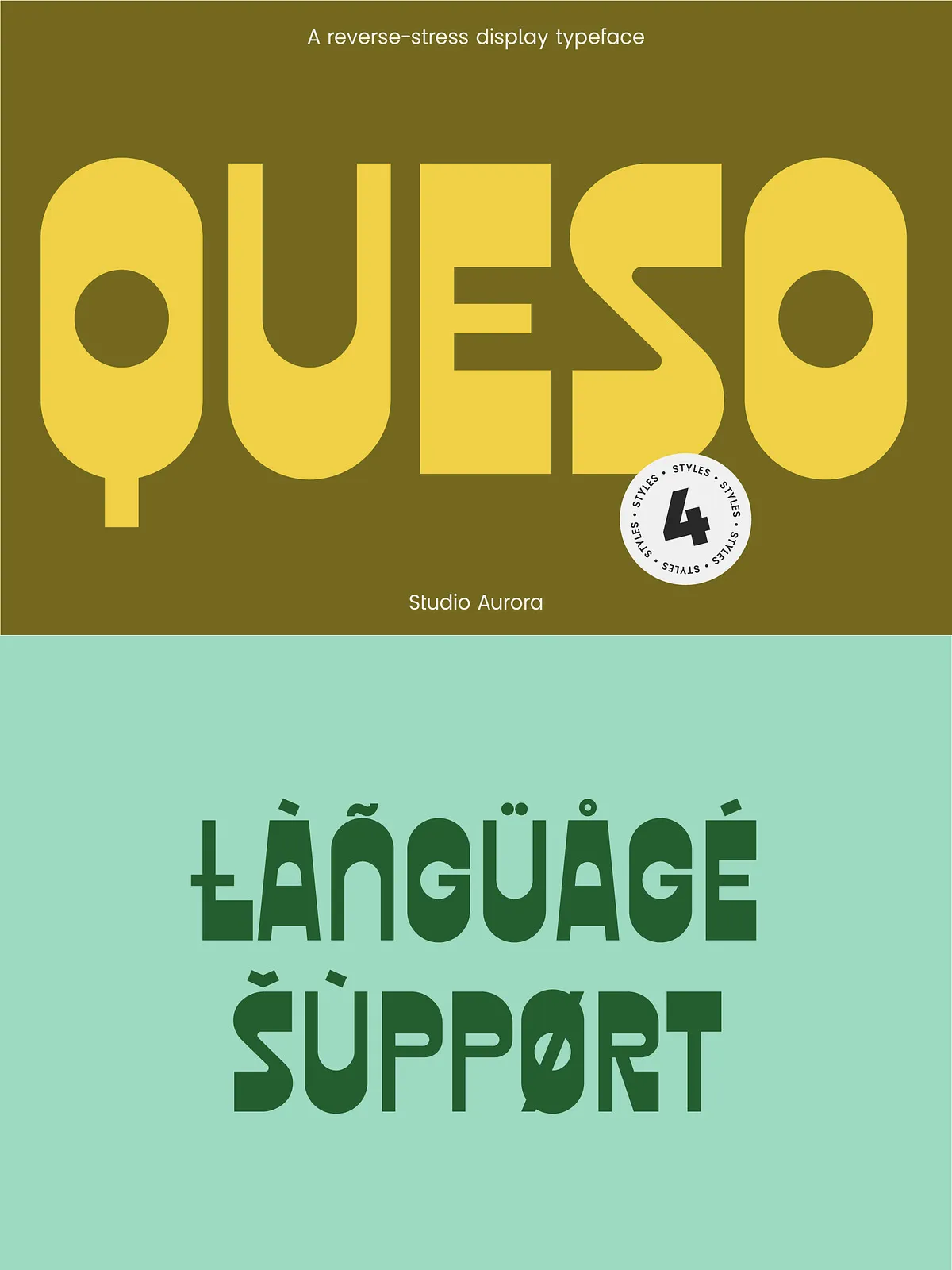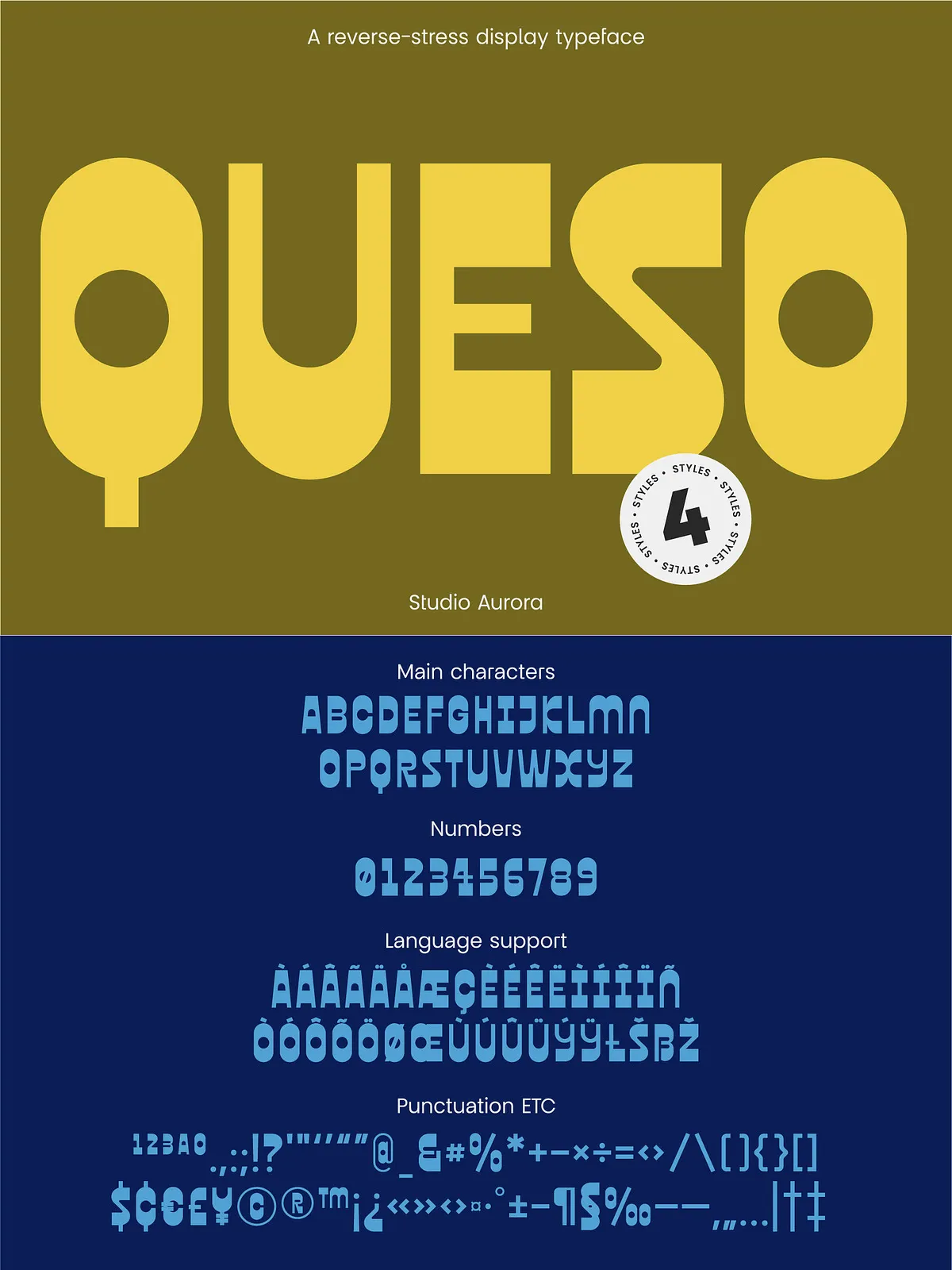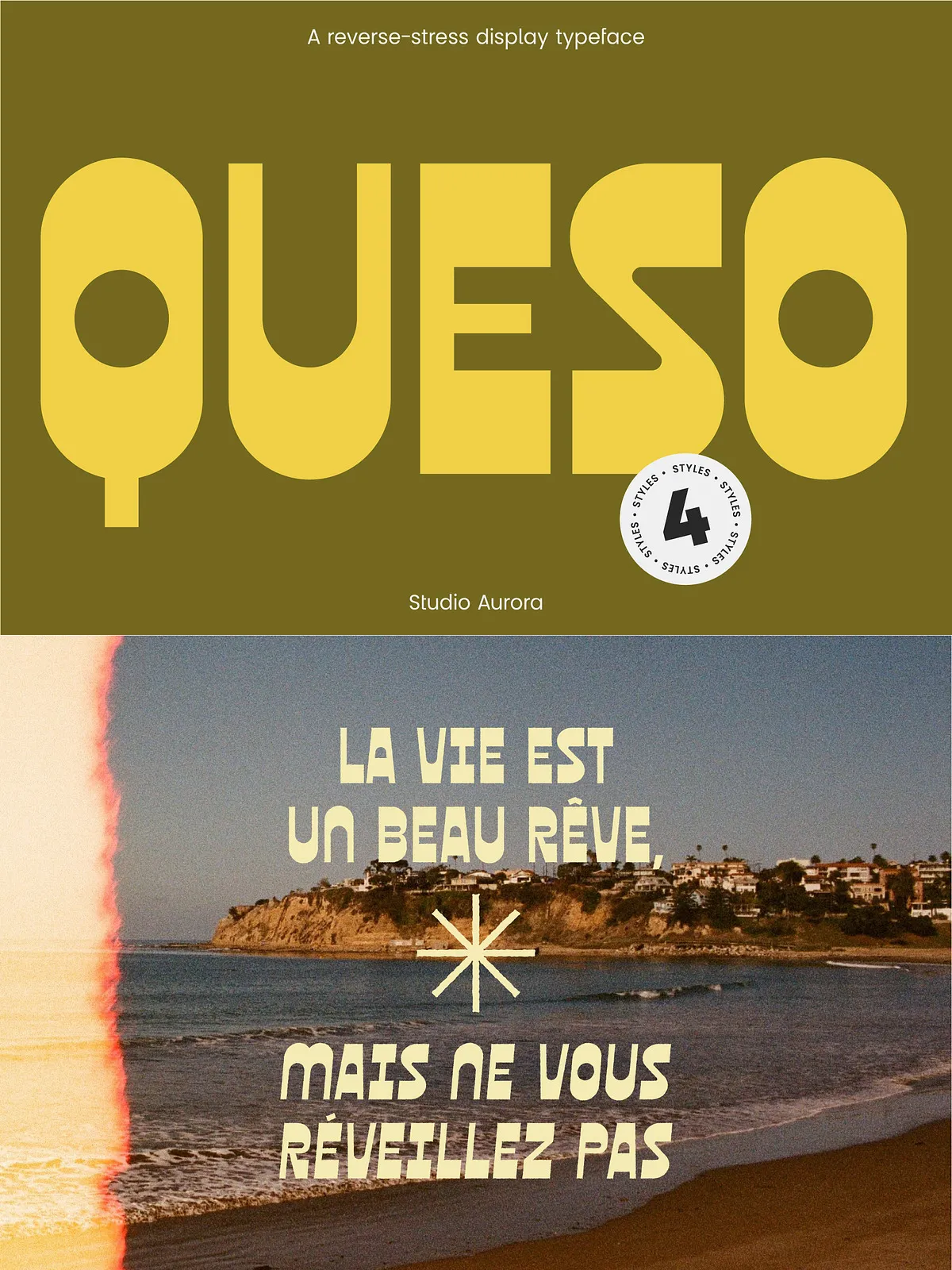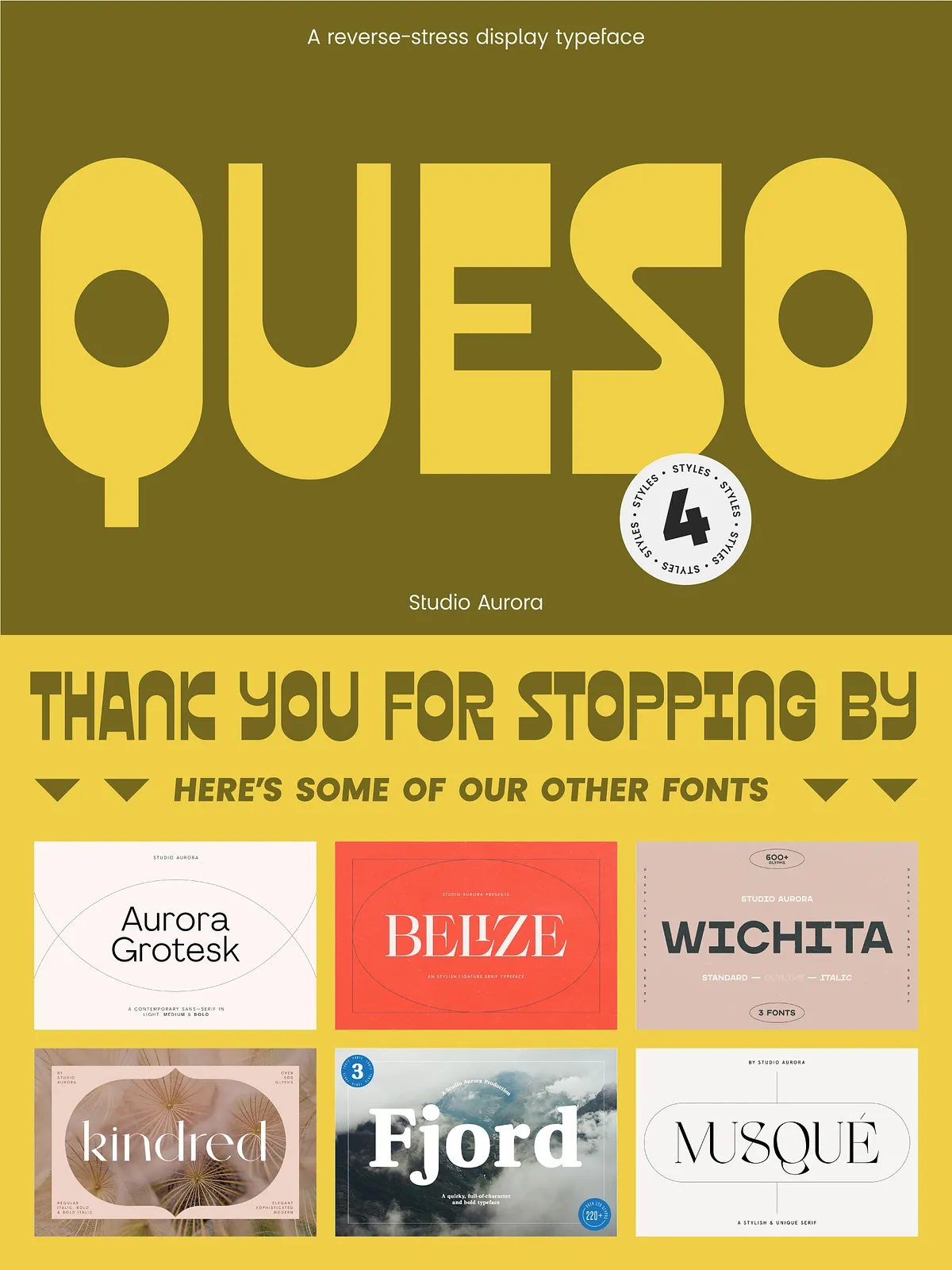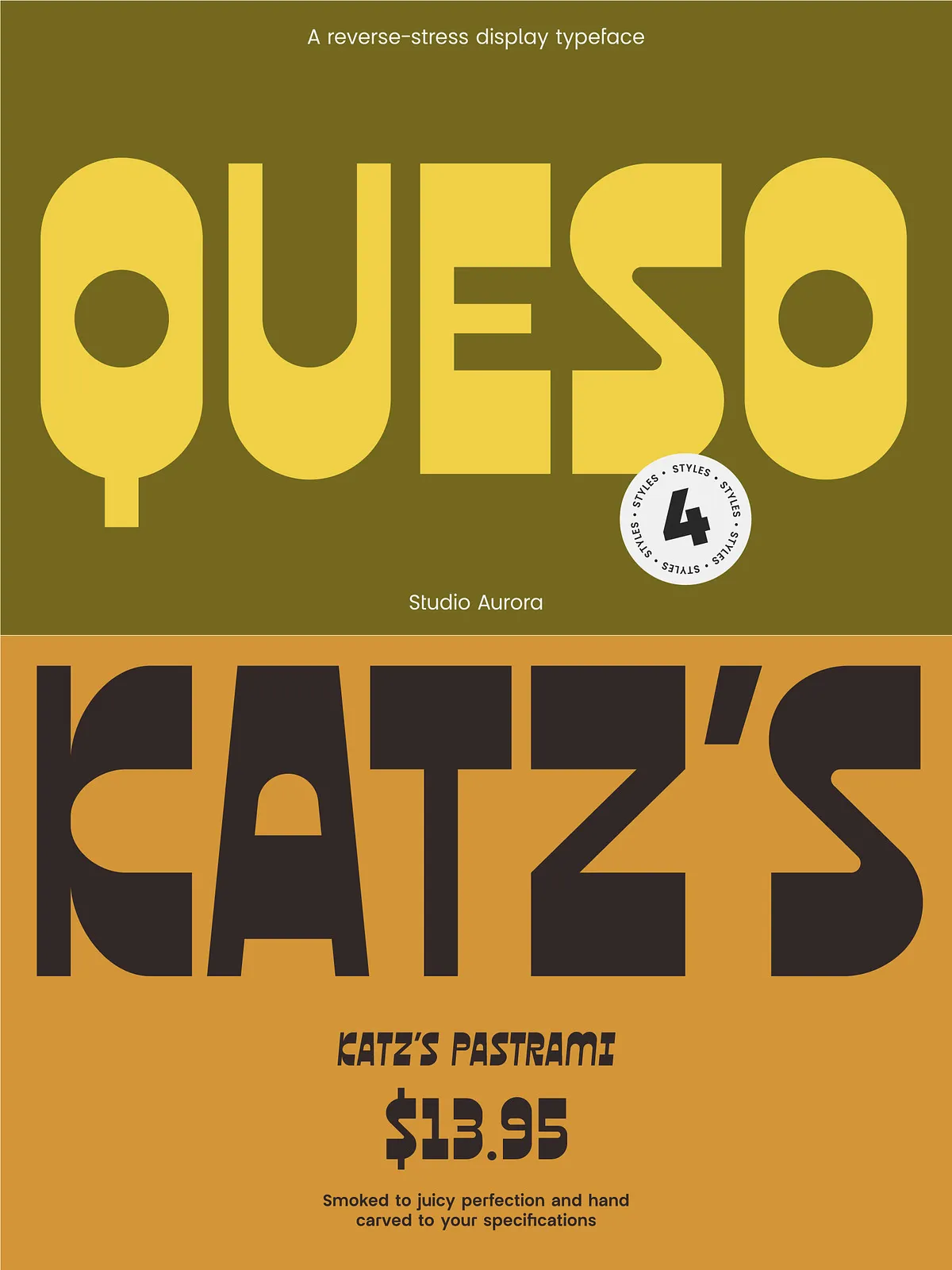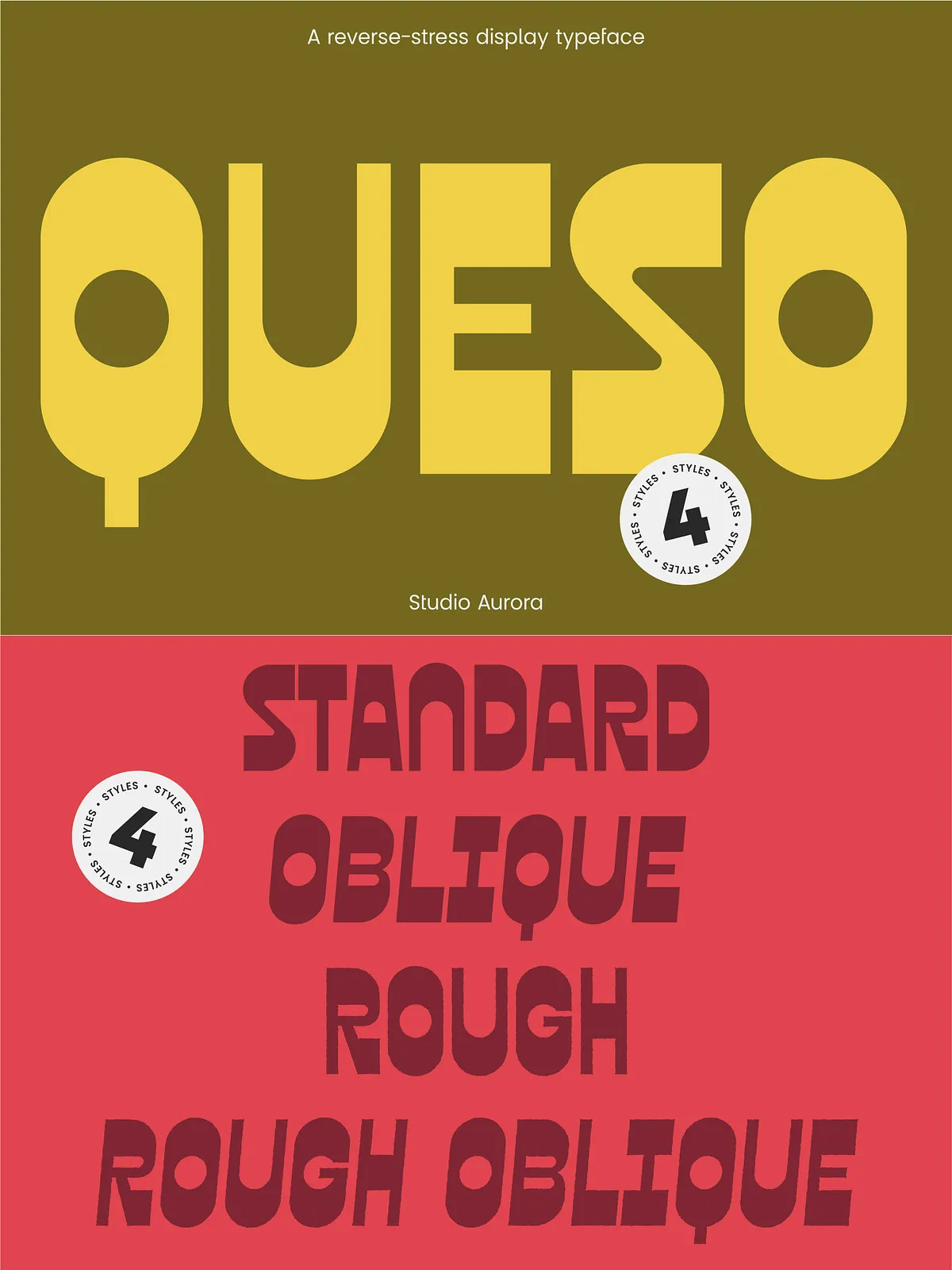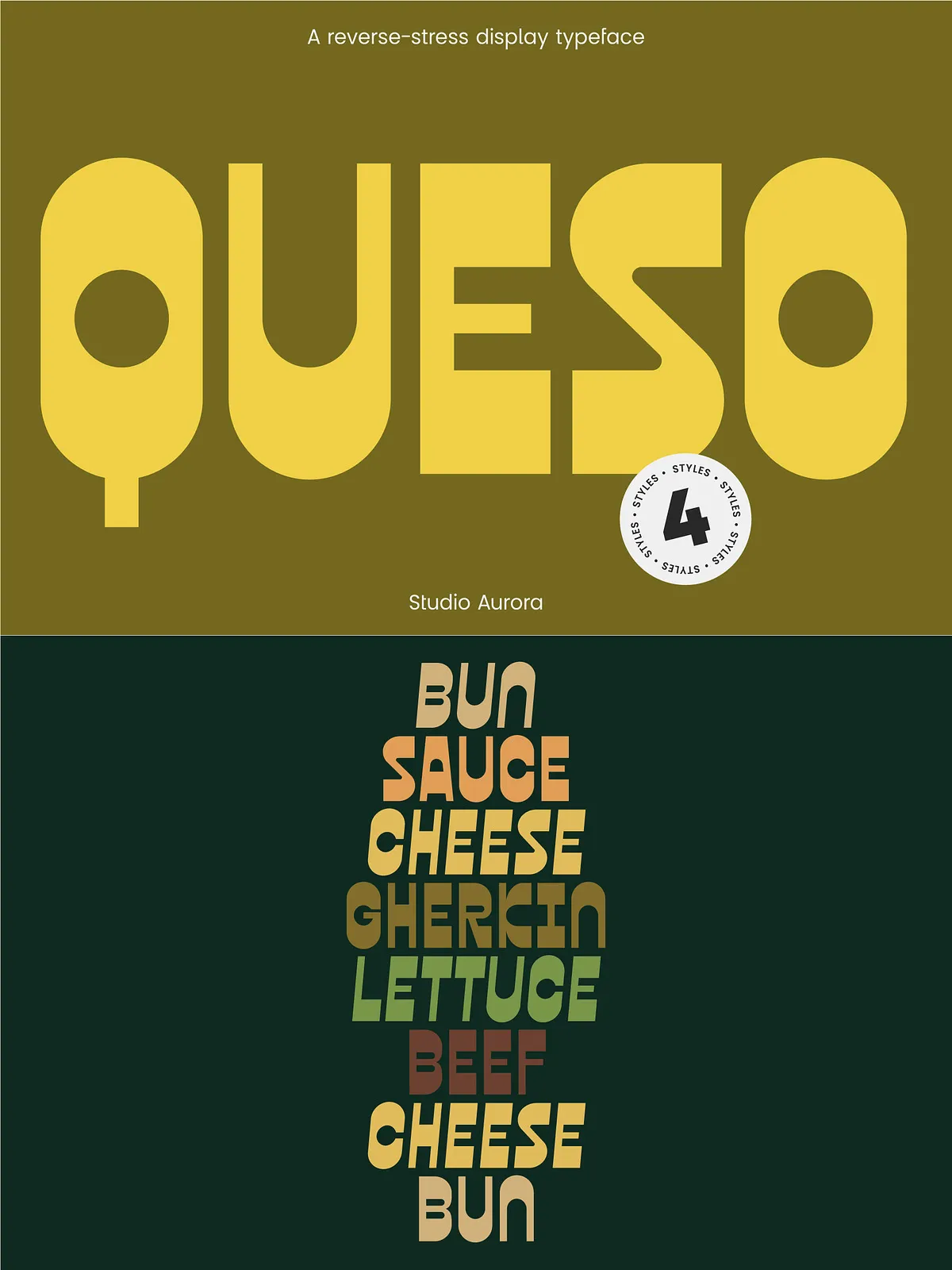
Queso – Quirky Retro Display Font
Queso is a 4 style (regular, oblique, rough & rough oblique) fun and quirky retro reverse contrast display font.
Perfect for designs that need that retro, hipster feel with a contemporary edge. Use it for a logo, a magazine masthead or as part of an email marketing campaign – it’s up to you!
4 styles including: Regular, Oblique, Rough & Rough Oblique
Uppercase glyphs
Punctuation
Numbers
Multilingual support
Language Support: Afrikaans, Albanian, Catalan, Danish, Dutch, English, French, German, Italian Norwegian, Portuguese, Spanish, Swedish, and Zulu.